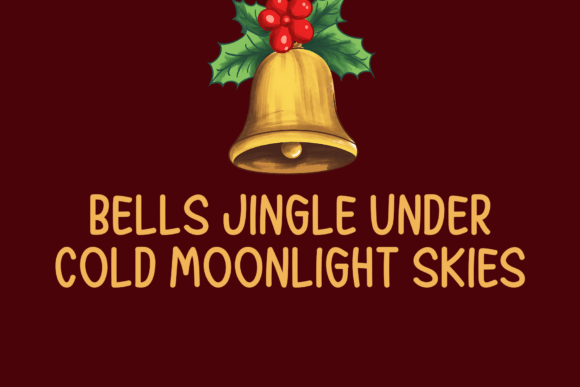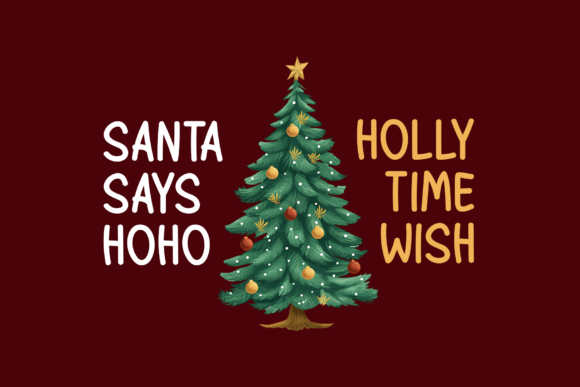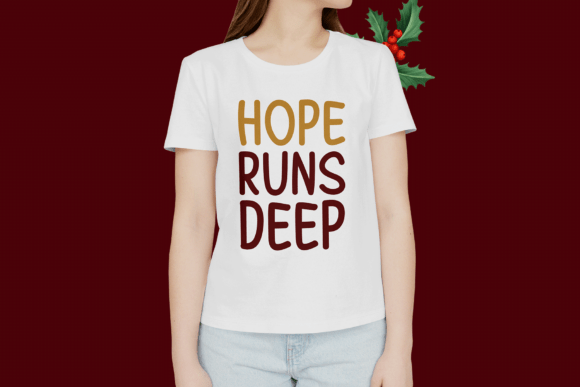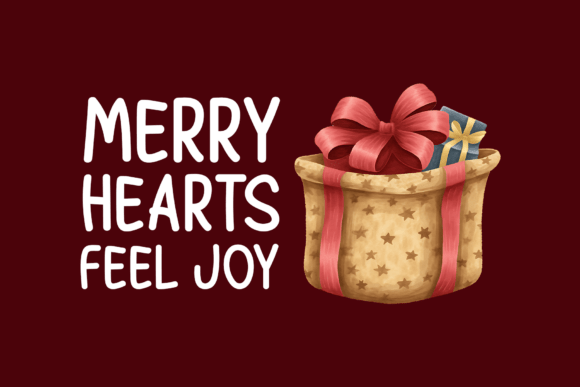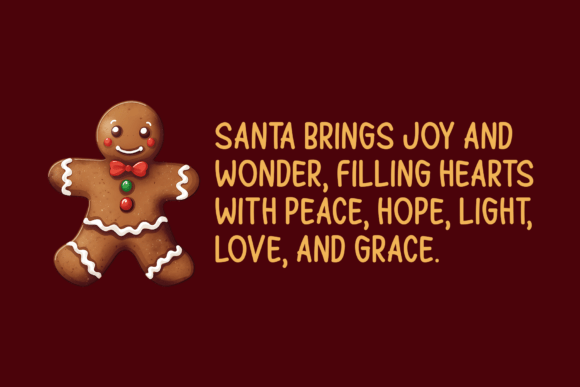
Introduction to Santa Magic Font
Santa Magic is a charming handwritten font that captures the warmth and wonder of the holiday season.
Its playful strokes and cozy feel make it ideal for festive projects like greeting cards, logos, apparel, print materials, web headers, music covers, and more Whether youโre designing for Christmas or simply want to add a magical, personal touch, Santa Magic brings joy to every creation.
Key Features of Santa Magic Font
Why Choose Santa Magic Font?
Santa Magic Font offers exceptional quality and versatility, making it a valuable addition to your design toolkit. Whether you’re creating for personal projects or commercial use, Santa Magic Font delivers professional results.